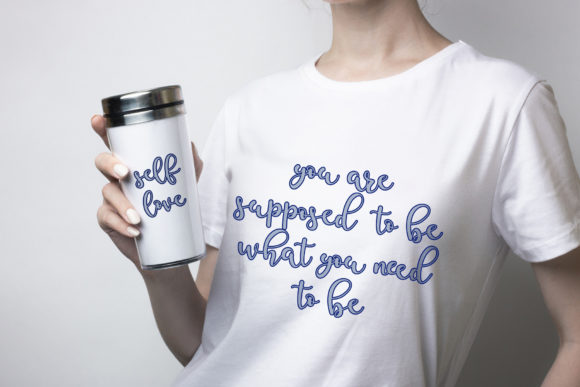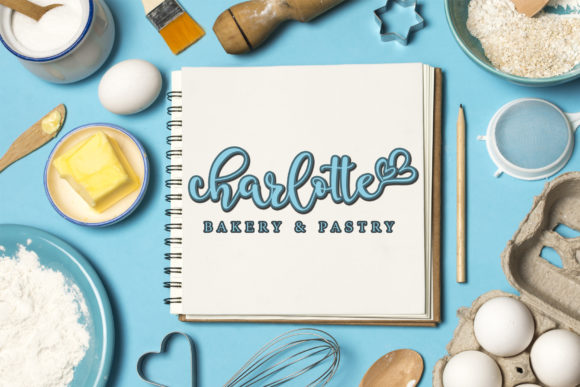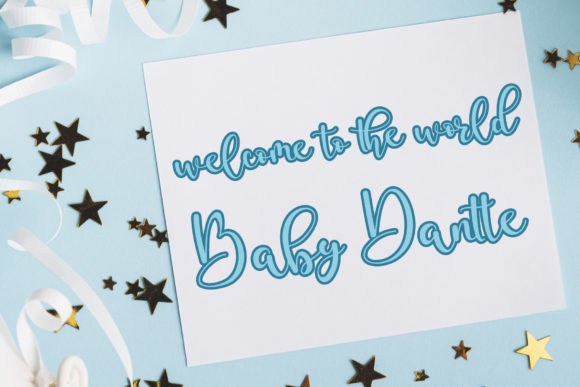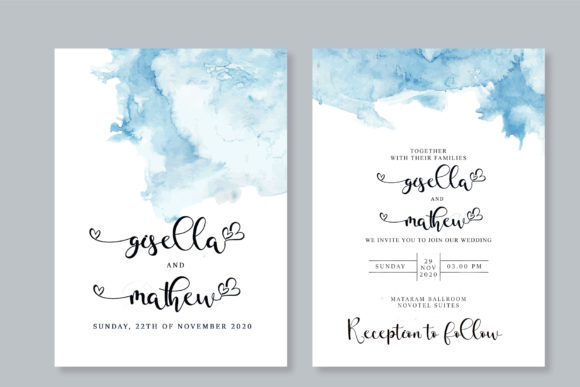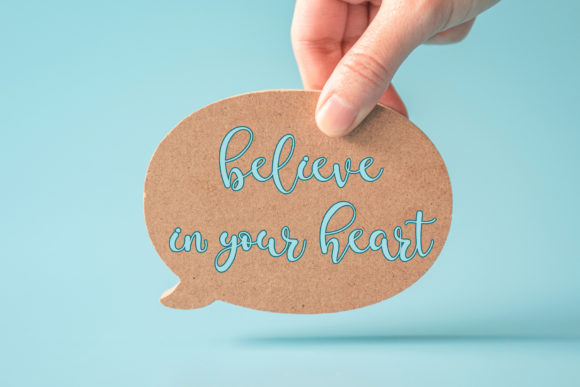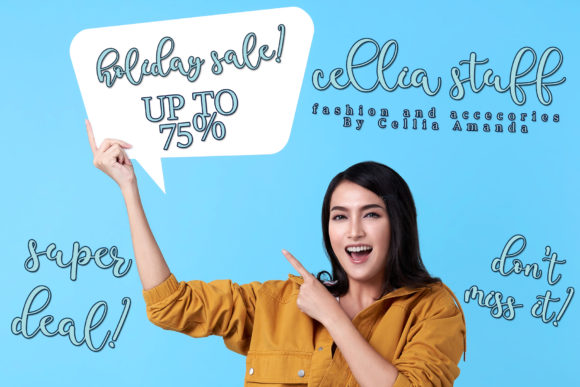
Introduction to Jocellyne Font
Jocellyne is a sweet, cute, and lovely handwritten font.
It looks stunning and it will elevate a wide range of projects This font is PUA encoded which means you can access all of the glyphs and swashes with ease.